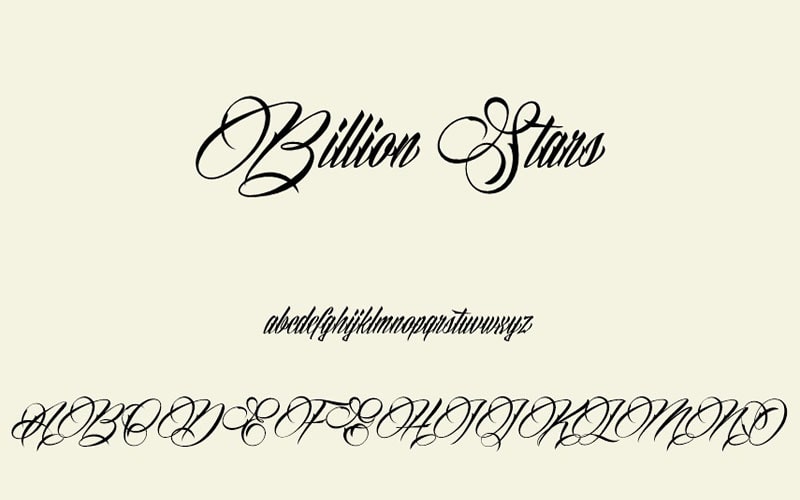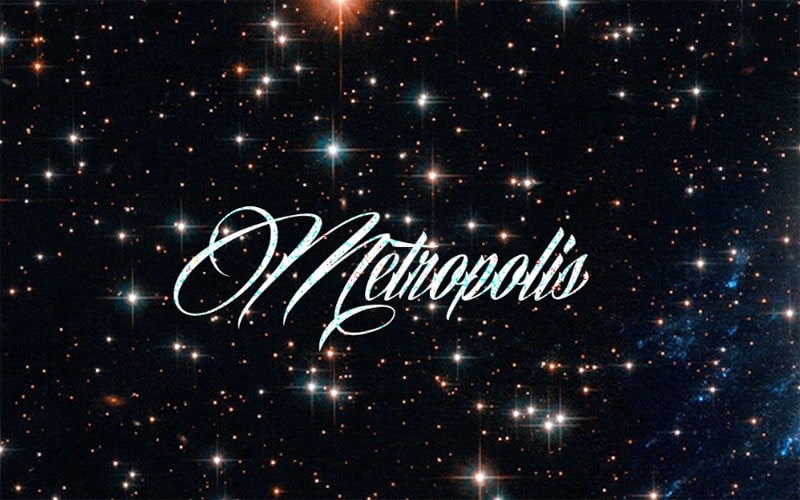
Billion Stars Font is a modern script typeface that exudes elegance, charm, and a touch of whimsy. This font was designed by the talented Indonesian designer Misti Hammers.
He is known for creating a wide range of stylish and versatile fonts that have found their way into various design projects around the globe.
It is a script typeface that captures the fluidity of handwritten text. It features smooth, curvaceous strokes with a consistent weight throughout the characters, giving it a polished and sophisticated appearance.
Billion Stars includes a full set of uppercase and lowercase letters, numbers, punctuation, and special characters. The design of each character is consistent and well-balanced, ensuring a harmonious look across all text.
Billion Stars Font
| Font Name: | Billion Stars Font |
| Style: | Calligraphy, Script, Typeface |
| Font Designer: | Misti Hammers |
The letters are carefully crafted to connect seamlessly, creating a continuous, flowing script that is both elegant and readable. It is perfect for a wide range of design projects where a touch of elegance and personality is desired.
This font can add a personal touch to brand identities, particularly for businesses in the fashion, beauty, and lifestyle sectors that seek to convey a sense of elegance and modernity.